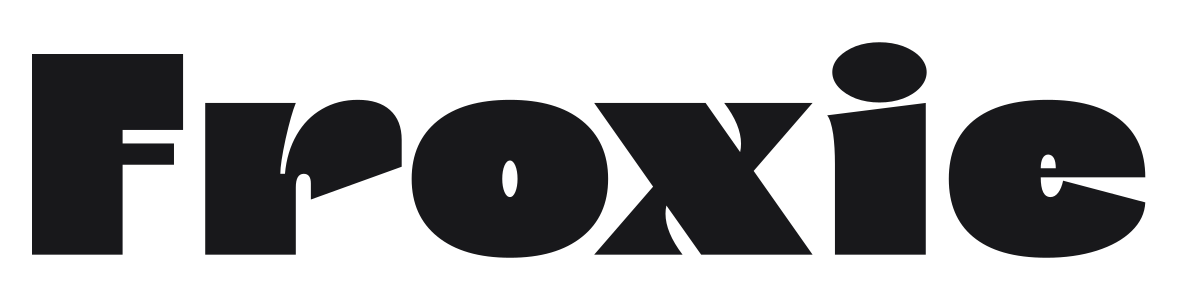
Froxie
Froxie is an ultra-heavy retro serif with extreme stroke contrast and wide, assertive proportions. The thick stems and bracketed hairline serifs carry a distinct 1970s poster energy, somewhere between funky psychedelia and bold editorial design. It commands attention at large sizes and suits brands that want personality with weight behind it.